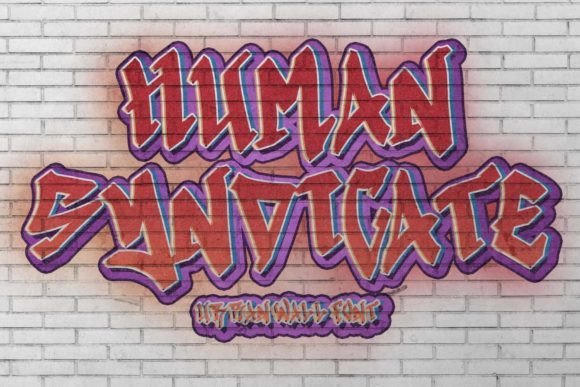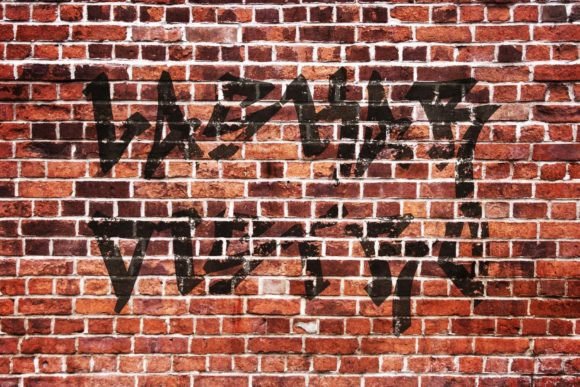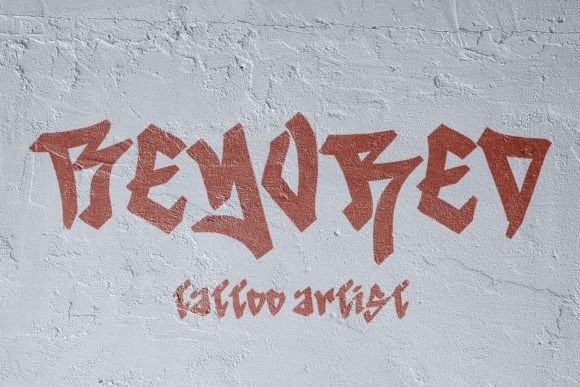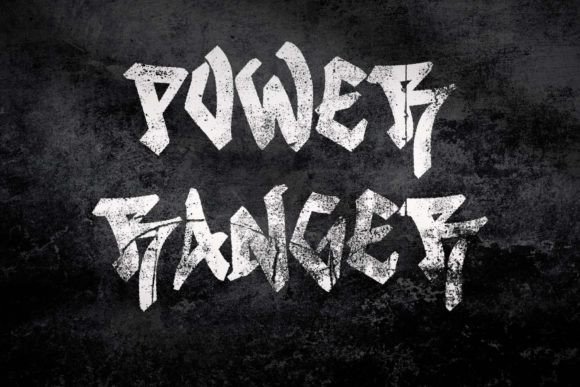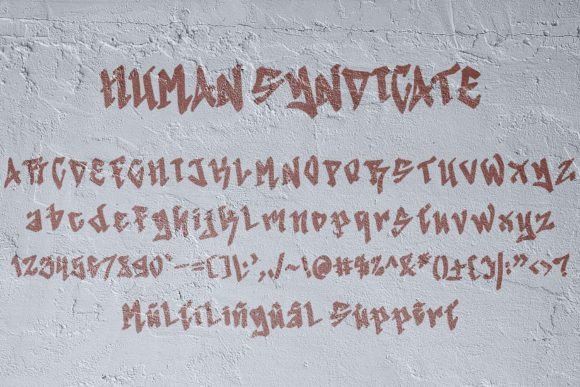
Unleash Your Creativity with the Human Syndicate Font
There’s something magical about discovering a new font that sparks an idea. Perhaps you’re brainstorming a design concept, and suddenly, the perfect font pops into your mind, guiding your creative vision. This is exactly what happens when designers stumble upon the Human Syndicate Font – a unique and elegant graffiti font that brings a touch of urban flair to any project.
Equipped with uppercase, lowercase, numerals, punctuation, and multilingual support, the Human Syndicate Font is a versatile tool for designers. Whether you’re working on a wall art project, crafting a logo, or designing a poster, this font is sure to elevate your design and make it stand out. Its value lies in its ability to add a personal touch to any project, making it an essential addition to any designer’s toolkit.
Human Syndicate Font Key Features
- Font Family: Human Syndicate
- Unique Characteristics: Includes 1800+ glyphs, 4 figure styles, and 10 font weights
- Language Support: Supports over 100 languages, including Latin, Cyrillic, and Greek scripts
Designer Review: Human Syndicate Font
As a designer, I was excited to try out the Human Syndicate Font. Overall, I think it’s a solid choice for any project, but like any font, it has its strengths and weaknesses.
- Unique Style**: The Human Syndicate Font has a distinctive, modern look that’s sure to grab attention. Its unique blend of futuristic and industrial elements makes it perfect for projects that need a bit of edge.
- High Legibility**: The font is incredibly easy to read, even at small sizes, which makes it perfect for body text or headlines.
- Great for Titles**: The Human Syndicate Font is a great choice for titles and headings, thanks to its bold, striking design.
- Limited Font Sizes**: While the font is great at small sizes, it can start to look a bit rough at larger sizes. Be mindful of how you use it in your design.
- May Not Suit Every Style**: The Human Syndicate Font is a bold, edgy font, so it may not be the best choice for every project. It’s best suited for projects with a modern, futuristic vibe.
Overall, I think the Human Syndicate Font is a great choice for designers who want a unique, attention-grabbing font. While it has some limitations, its strengths far outweigh its weaknesses, making it a solid addition to any design toolkit.
Tips for Getting the Most Out of Human Syndicate Font
Use Human Syndicate Font for titles, headings, and emphasis to add a touch of sophistication to your designs.
Experiment with different font sizes and colors to create visual interest and hierarchy in your designs.
Human Syndicate Font is ideal for:
- Business and corporate designs
- Professional and creative portfolios
- Editorials and publications
- Marketing materials and advertisements
Alternatives to Human Syndicate Font
Montserrat is a modern sans-serif font designed by Julieta Ulanovsky. It is a great alternative to Human Syndicate Font for designers who want a clean and minimalist look. Montserrat is perfect for titles, headings, and body text in digital products, magazines, and websites.
Montserrat is similar to Human Syndicate Font in its clean and geometric design, but it has a more urban feel and is optimized for digital use. It is highly legible and works well in a variety of sizes and contexts.
Open Sans is a popular sans-serif font designed by Steve Matteson. It is a great alternative to Human Syndicate Font for designers who want a clean and versatile font that works well in a variety of contexts. Open Sans is perfect for body text, titles, and headings in digital products, websites, and print materials.
Open Sans is similar to Human Syndicate Font in its clean and modern design, but it has a more rounded feel and is highly legible in a variety of sizes and contexts. It is also highly customizable and works well in a variety of languages.
Lato is a modern sans-serif font designed by Łukasz Dziedzic. It is a great alternative to Human Syndicate Font for designers who want a clean and elegant look. Lato is perfect for titles, headings, and body text in digital products, magazines, and websites.
For optimal readability, we recommend using the Human Syndicate Font at a minimum size of 12 points and a line height of 1.5 to 2 times the font size. This will ensure that the text is easy to read and visually appealing.